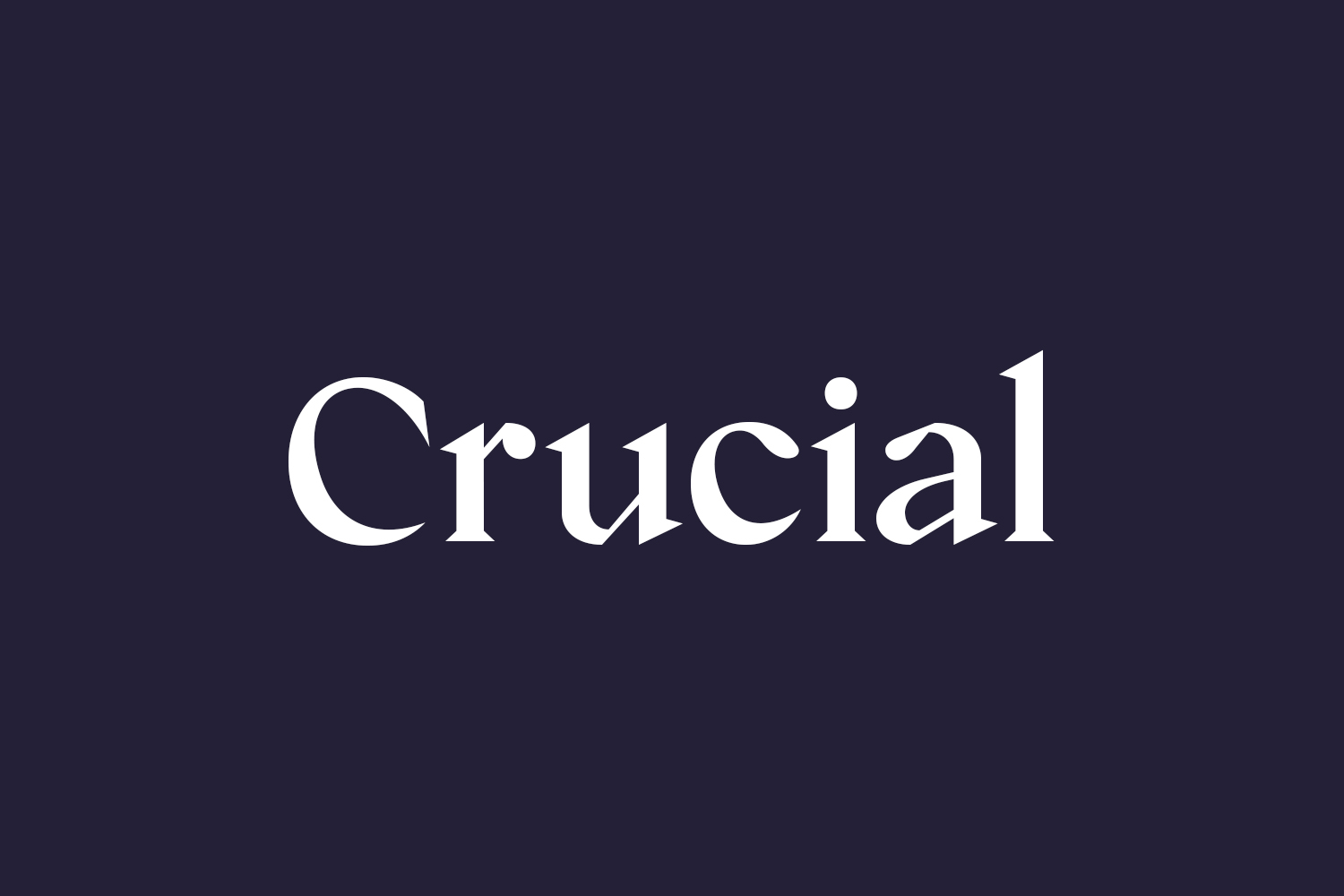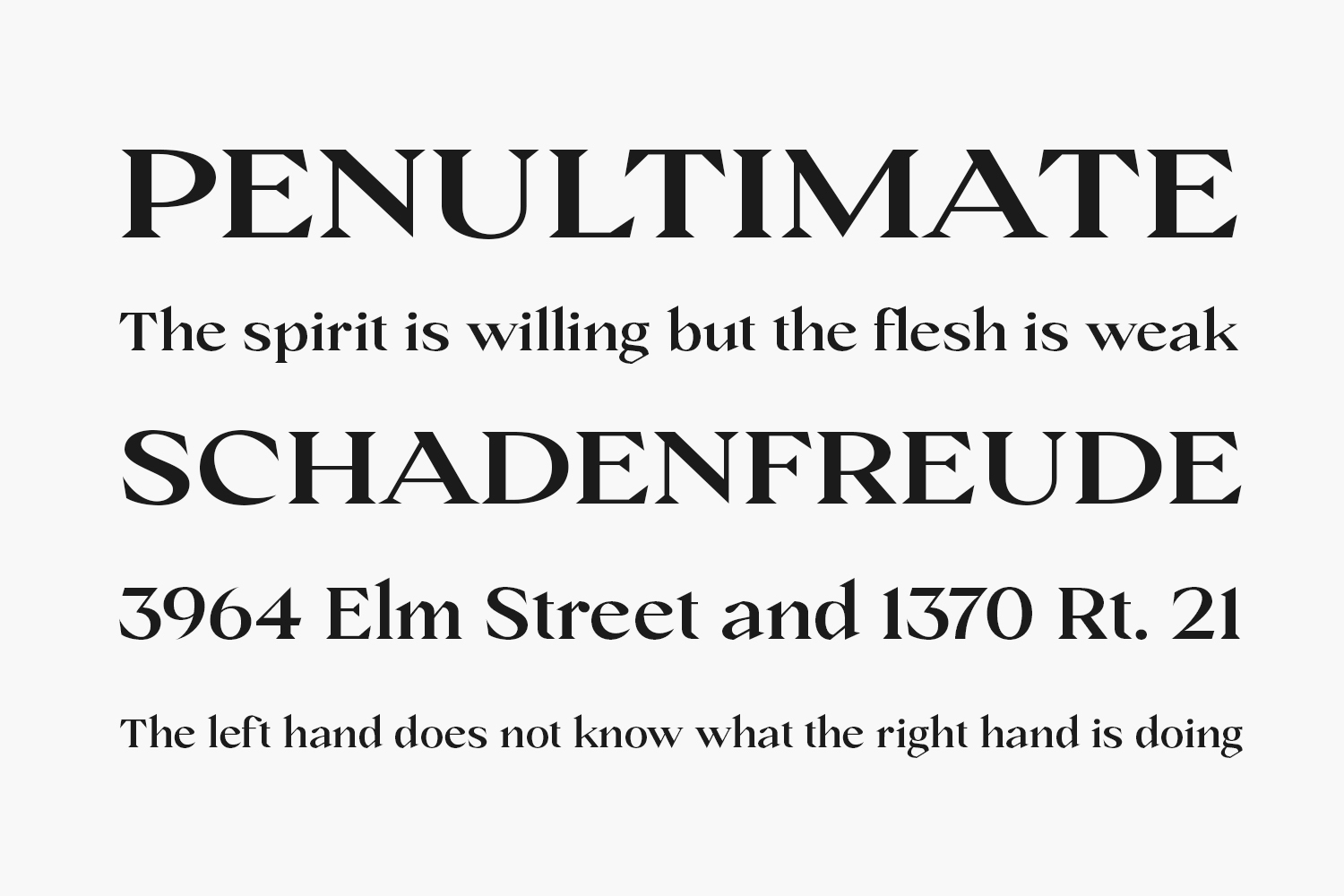
Crucial Free Font Family is a typeface that embodies the essence of both classic and modern design. Its elegant serifs are reminiscent of traditional typography, while its clean lines and minimalistic approach give it a contemporary edge. The font strikes a delicate balance between form and function, making it a versatile choice for a wide range of design projects. Its bold yet refined aesthetic is sure to grab attention and convey a sense of sophistication and professionalism. Whether you’re creating a logo, designing a website, or laying out a print publication, Serif Crucial Free Font is a reliable and eye-catching option that will elevate your work to the next level.
Designed by Jehoo Creative